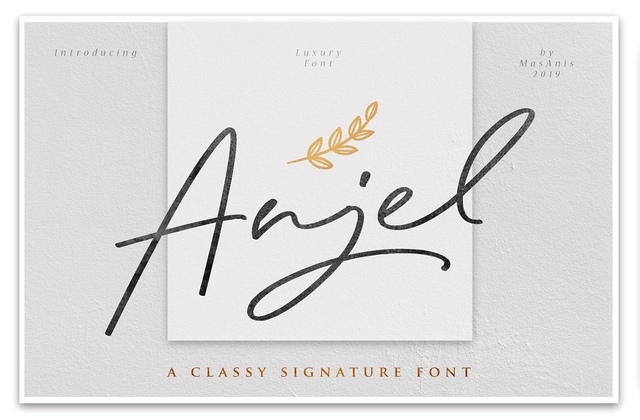
Anjel Script Font
This graceful handwritten typeface is perfect for spiritual branding, inspirational quote designs, wellness center materials, yoga studio signage, meditation app interfaces, holistic health packaging, mindfulness book covers, and peaceful lifestyle brand communications.
What makes this font exciting is its serene, flowing character that captures the essence of inner peace and spiritual tranquility through gentle curves and harmonious letterforms. The organic handwritten quality creates an immediate sense of authenticity and personal connection, while the calming rhythm of the script evokes feelings of mindfulness, serenity, and spiritual awakening that resonates deeply with wellness-focused audiences.
The Anjel Script Font family includes regular and light weights, along with decorative swashes, spiritual symbols, and peaceful ornaments that enhance the font's transcendent appeal for comprehensive wellness and spiritual design applications.
Anjel Script Font Free Download provides designers with a beautiful solution for creating meaningful brand identities that inspire and uplift the human spirit. This thoughtfully crafted typeface brings the warmth of personal handwriting to spiritual and wellness communications, making it ideal for meditation centers, alternative healing practices, spiritual coaches, and holistic lifestyle brands seeking to establish authentic, nurturing connections with seekers of inner peace.
The inspiring personality of Anjel Script Font shines through its gentle flow and organic variations that mirror the natural rhythm of conscious breathing and mindful movement. Each letter displays the subtle imperfections and human touch that create genuine authenticity and emotional resonance. This spiritual approach makes it particularly suitable for retreat centers, mindfulness apps, crystal healing businesses, and inspirational publishing requiring typography that communicates compassion, wisdom, and transcendent beauty.
Contemporary designers will find this font invaluable for projects requiring spiritual depth and emotional healing. From meditation class schedules to wellness product packaging, from inspirational wall art to healing practice branding, Anjel Script Font maintains its peaceful character while adapting to diverse wellness applications. The font's comprehensive character set includes heart symbols, infinity signs, and other meaningful ornaments that enhance spiritual communication, ensuring complete design flexibility for brands dedicated to promoting inner peace, personal growth, and spiritual transformation across all healing and wellness communities.